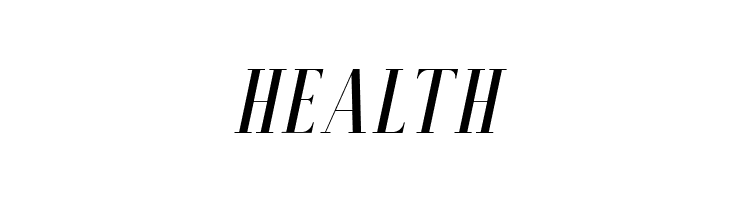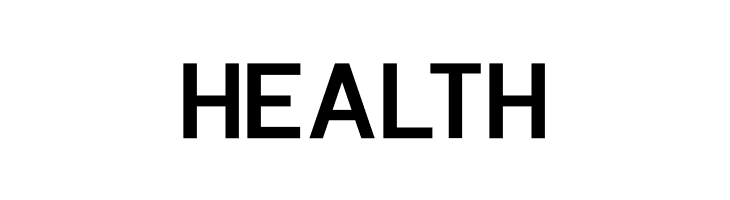
An elegant serif outline font with modern, elongated letterforms.
A bold, modern sans-serif font with a condensed and geometric style.
A bold, italic sans-serif font with a modern and dynamic style.
A clean, ultra-light serif font with a modern and elegant design.
Elegant serif font with italic style and medium contrast.
A bold, modern sans-serif font with clean lines and geometric precision.
A classic serif font with elegant and decorative elements, offering a refined and traditional appeal.
A bold, geometric sans-serif font with strong, uniform strokes.
A bold, modern serif font with high contrast and angular serifs.
A bold, modern serif font with dynamic strokes and sharp serifs.